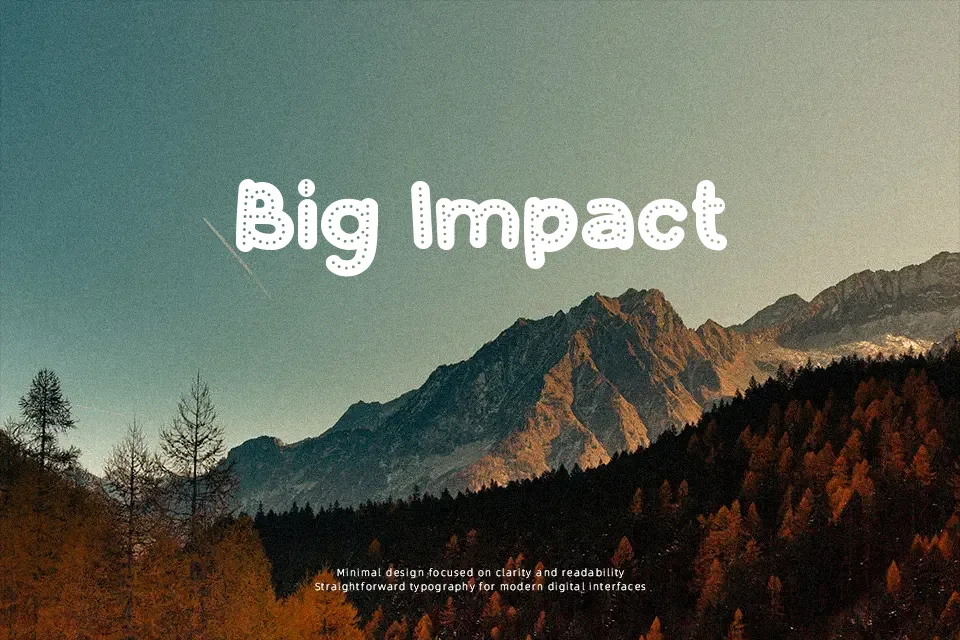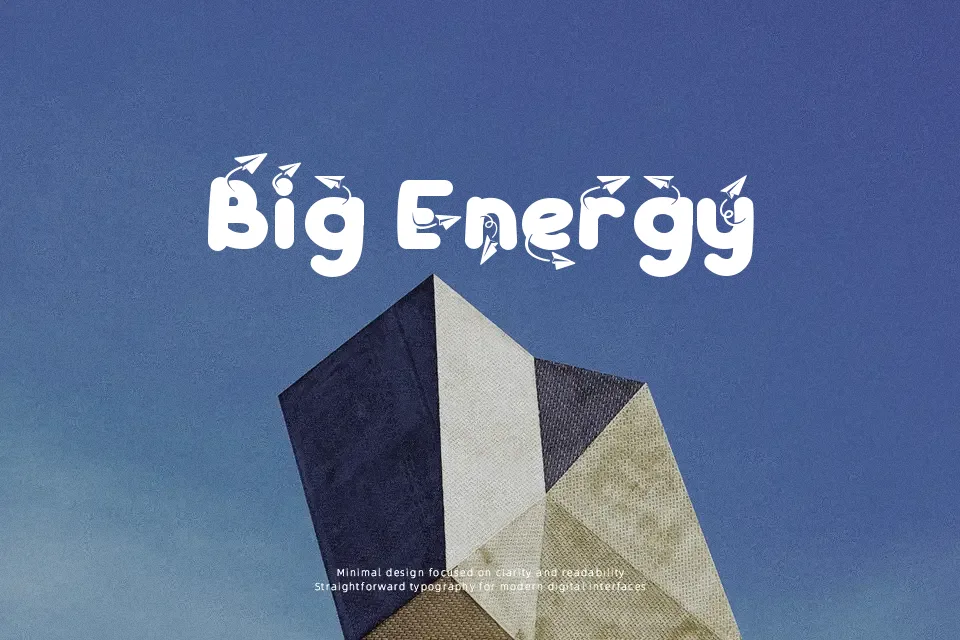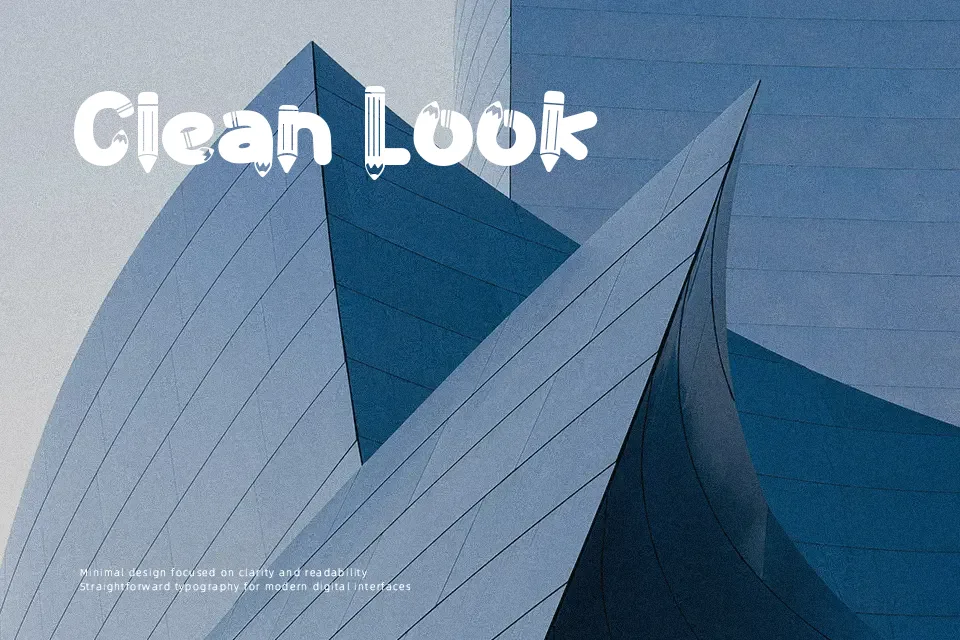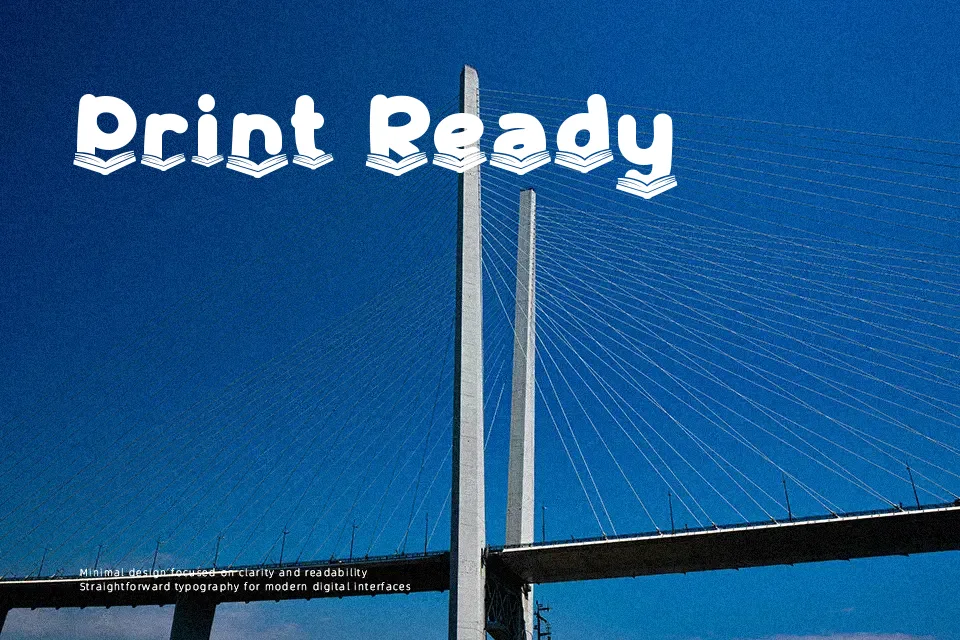
Super School Font
Super School Font works as a decorative display family built around clear, bold letterforms and a range of school-themed variants. Its visible designs include treatment options that add elements such as stitching, dots, rulers, math motifs, books, pencils, and other classroom imagery to the characters. The basic structure remains most readable when set large, while the themed details give short titles and labels a more illustrative rhythm. It is a practical choice for kid-focused posters or worksheet headings, but the decorative variants become less comfortable in small sizes and are not suited to continuous reading.
Best For: classroom posters,children’s worksheet headings,school event banners,educational social media graphics
Perfect for headline, kids, and poster, with a creative and decorative style.